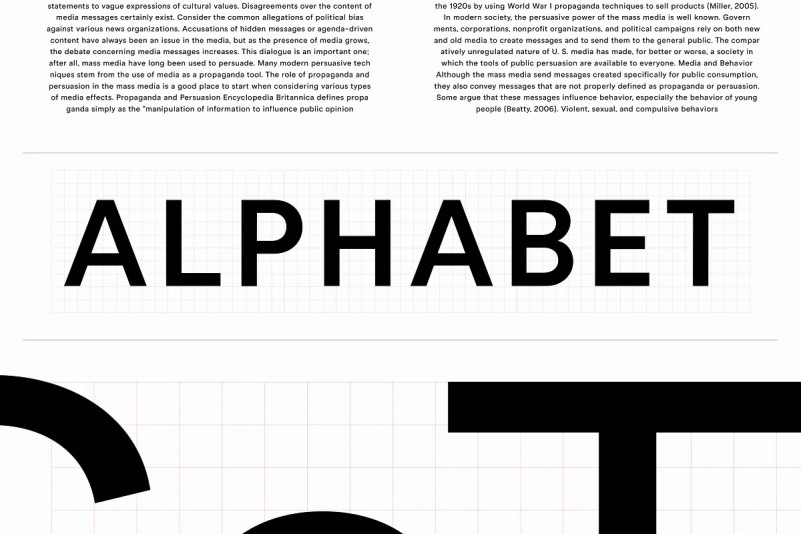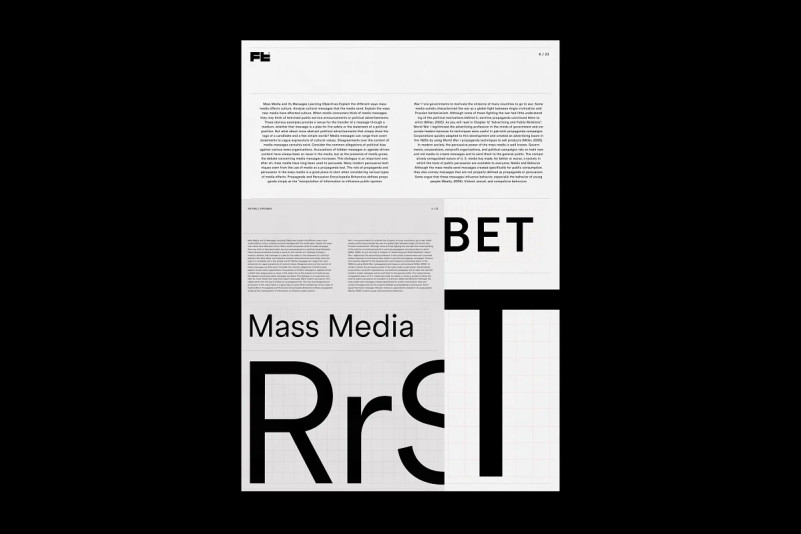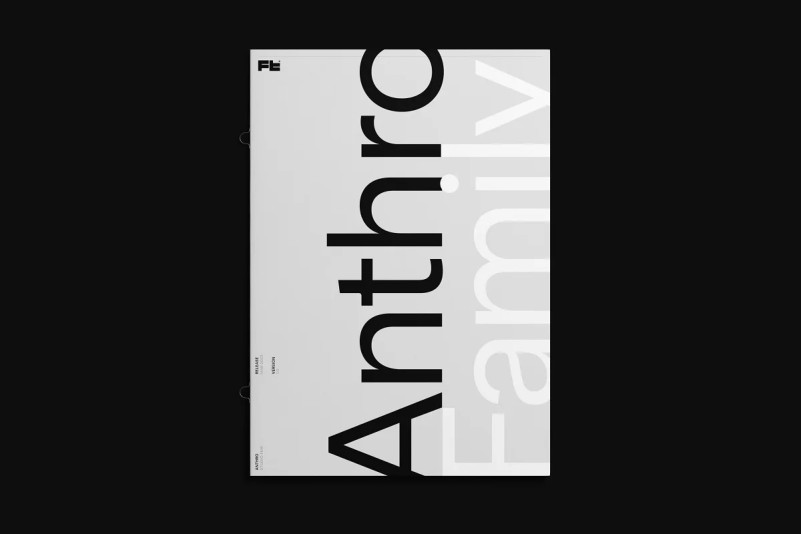
Anthro Font
Anthro Font is a UI font designed with personality. Concieved as a hybrid between Grotesk & Humanist, Anthro pairs legibility with character.
Anthro is a sans serif font family. This typeface has thirteen styles and was published by Studio Few.